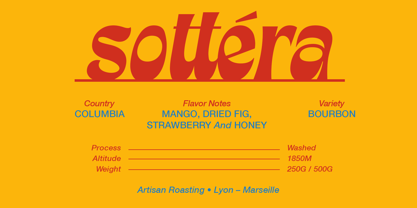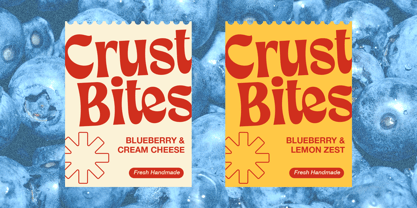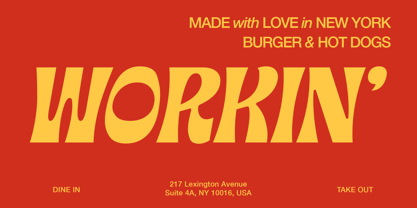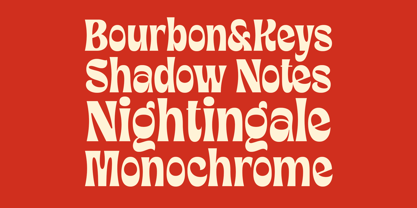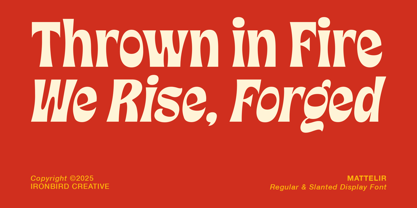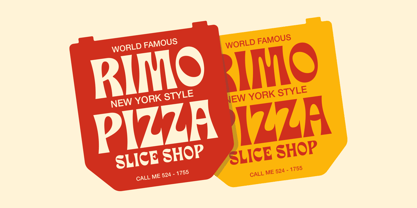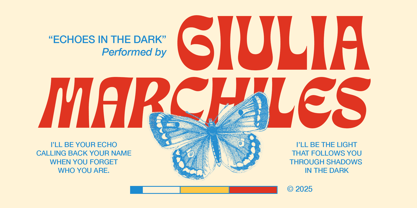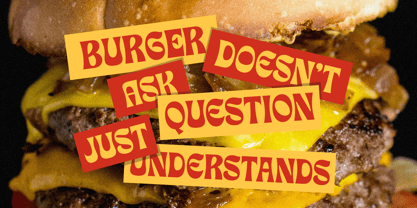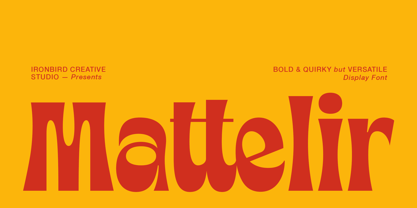
IC Mattelir
by Ironbird Creative
The IC Mattelir Font Family was designed by Bagas Ferdiansah, Septianto Nugroho and published by Ironbird Creative. IC Mattelir contains 2 styles and family package options. More about this family
IC Mattelir is a bold, quirky, and versatile display font that brings instant character to your designs. With its playful curves and confident strokes, this typeface perfectly blends retro charm with modern creativity. Ideal for branding, logos, posters, packaging, apparel, and social media graphics, IC Mattelir adds a handcrafted feel that stands out in any project. Its unique style makes it a great choice for designers looking to create eye-catching visuals with personality and warmth.
Designers: Bagas Ferdiansah, Septianto Nugroho
Foundry: Ironbird Creative